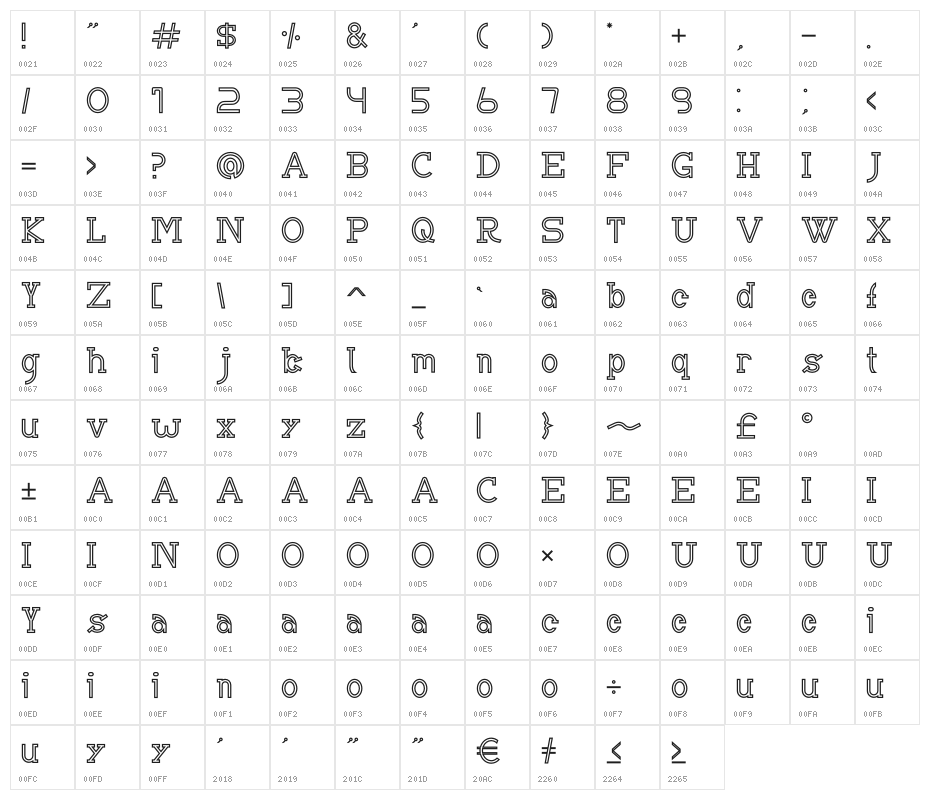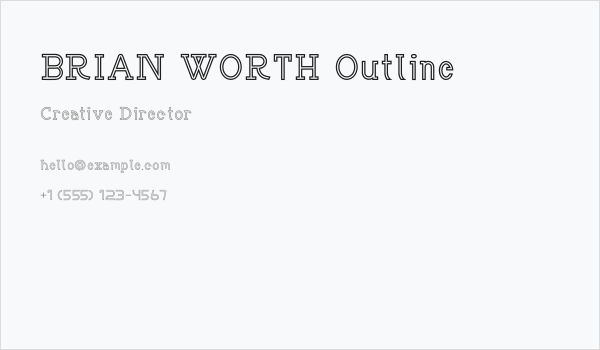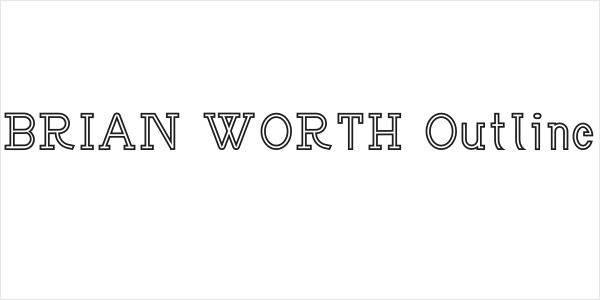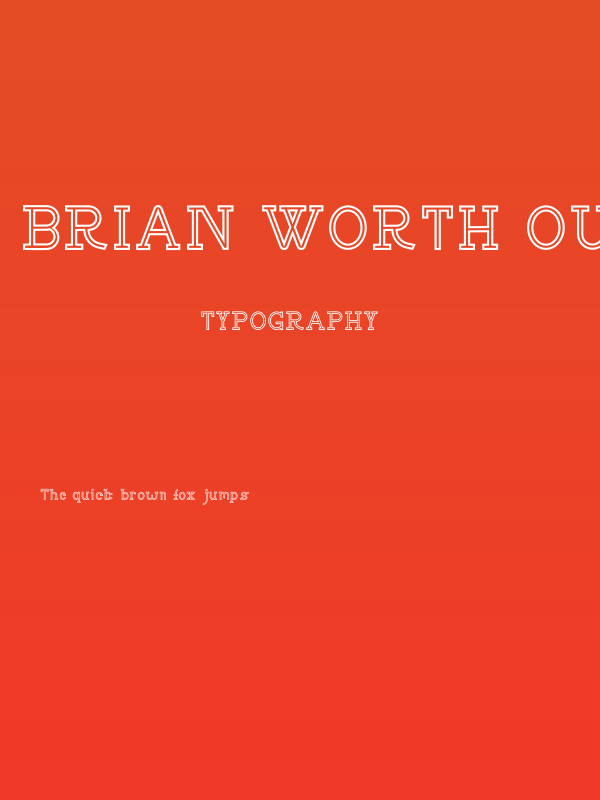
BRIAN WORTH Outline Font
BRIAN WORTH Outline Description
This font features a distinctive outline style that gives it a bold and eye-catching appearance. Each character is crafted with a double-line effect, creating a hollow interior that adds depth and dimension. The uppercase letters are strong and geometric, while the lowercase letters maintain a consistent style with slightly rounded edges. Numbers and special characters are designed to match the overall aesthetic, providing a cohesive look across all glyphs. The font's unique outline design makes it stand out, ideal for projects that require a modern and impactful visual statement.
| Proposed Projects | Ideal for headlines, posters, branding, and any design needing a modern, standout typeface. |